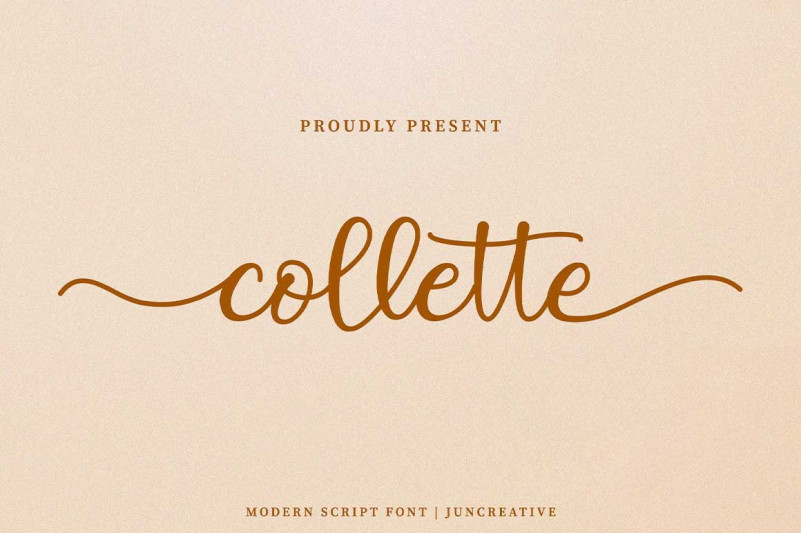
Collette Calligraphy Font
It’s a new modern & fresh calligraphy font created by JunCreative with a lot of stylistic alternate make this font looks natural, elegant, and perfect for any awesome projects. This font is PUA encoded which means you can access all of the glyphs and swashes with ease!